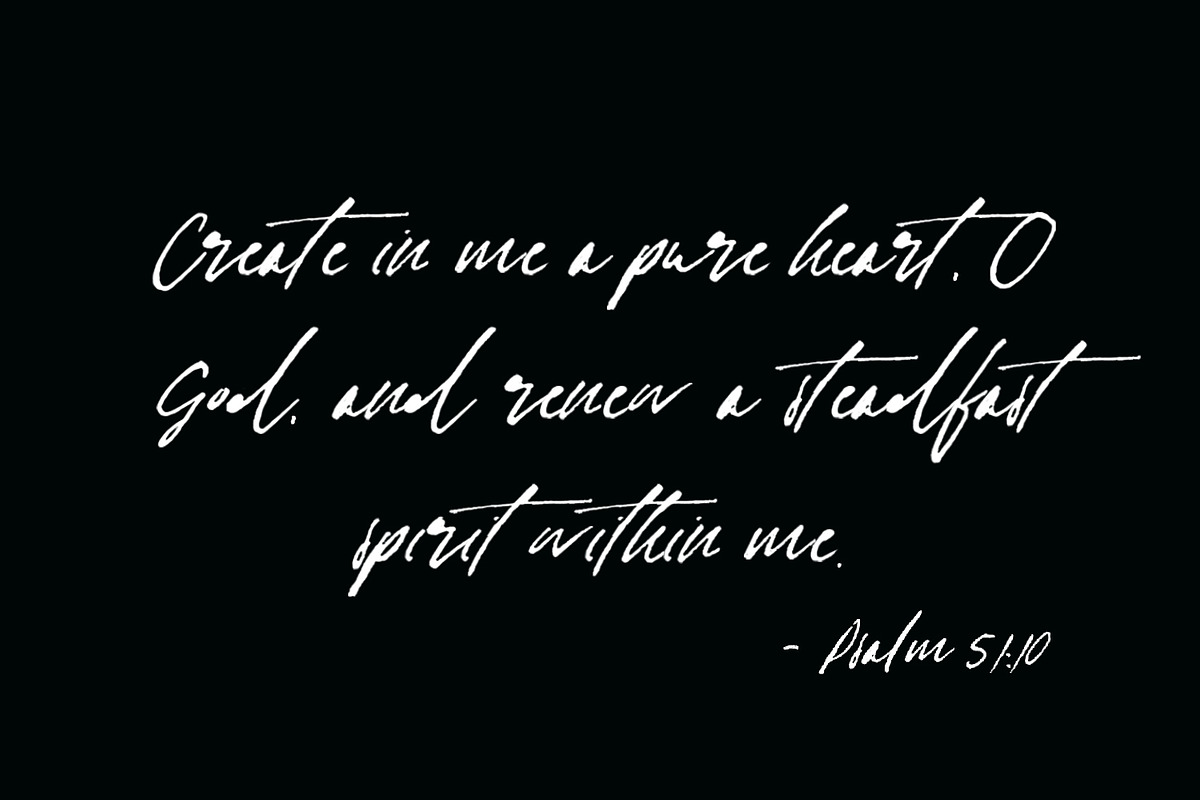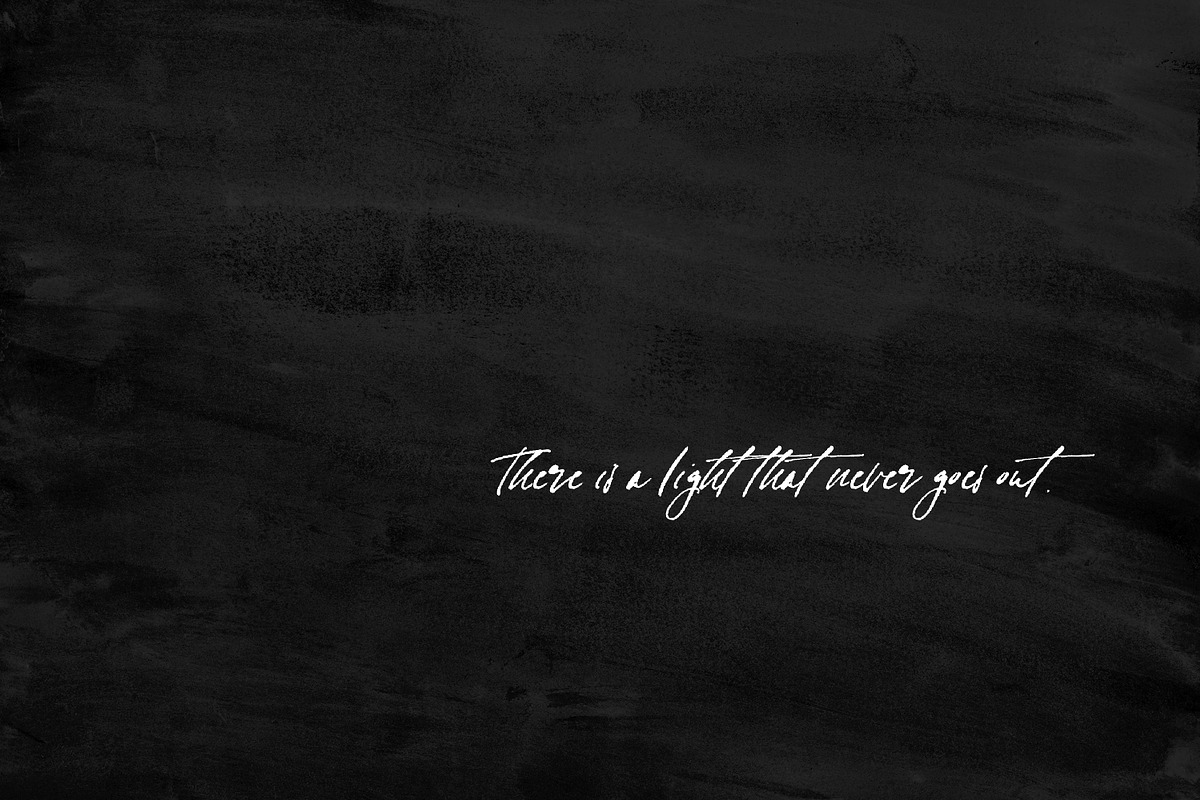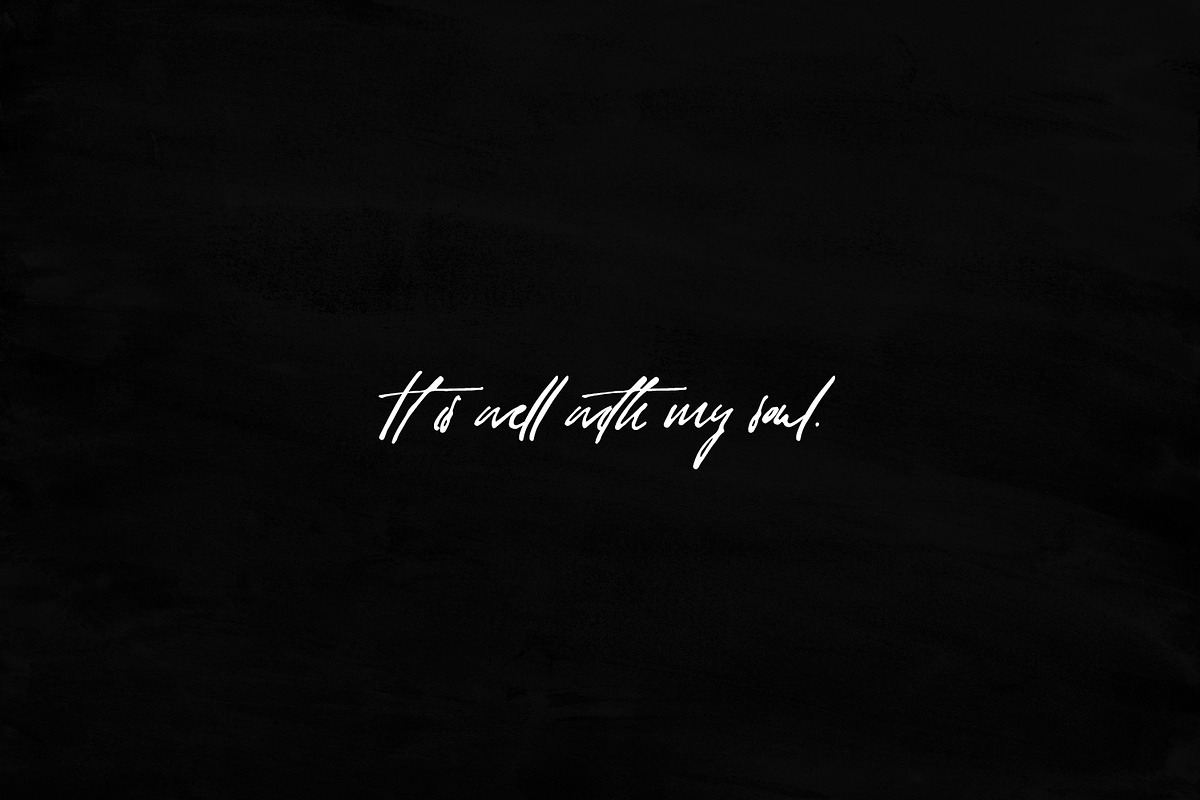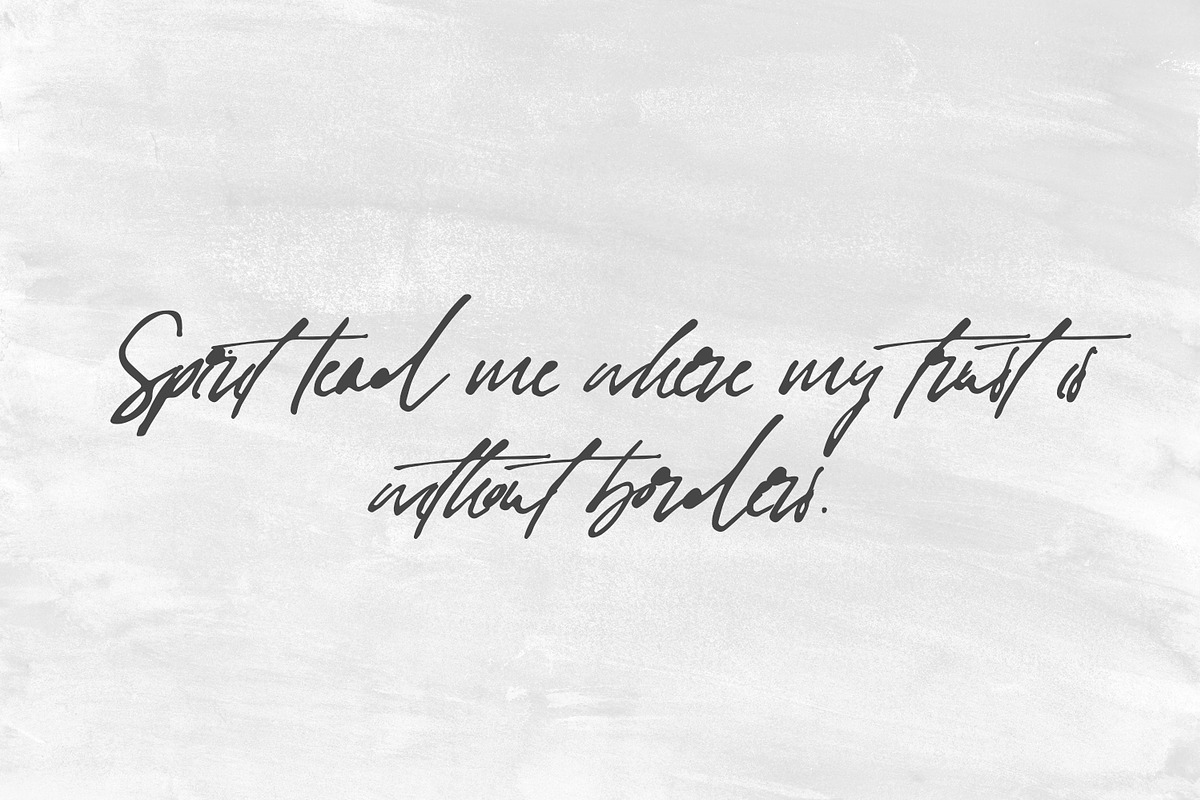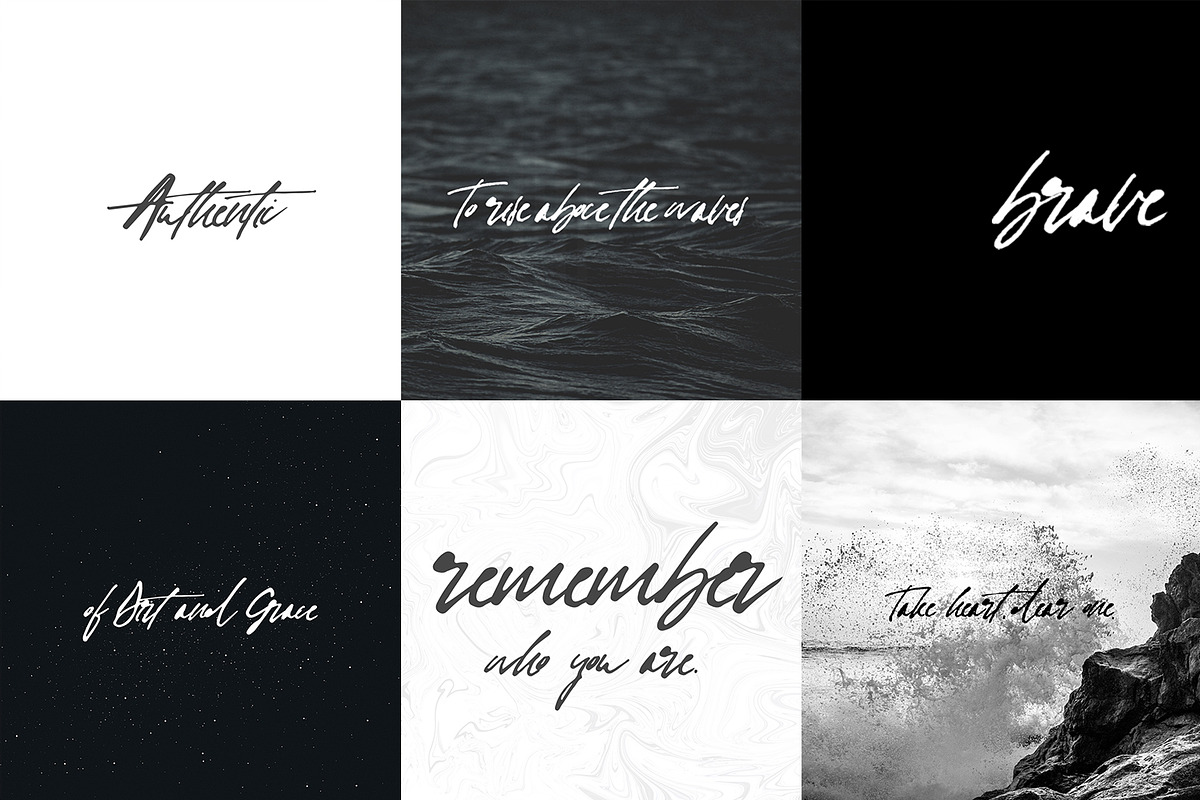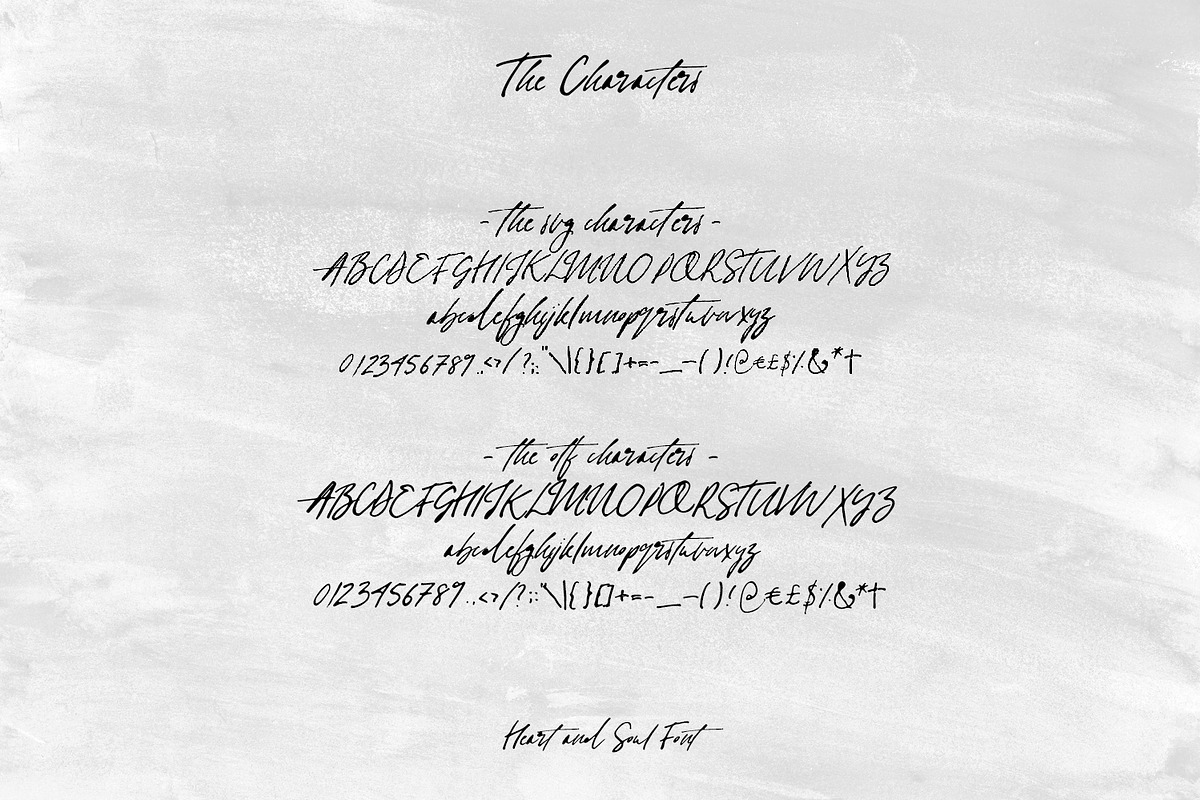
Heart + Soul | Handwritten Font
Inspired by the very breath of life and the song of all Creation, Heart and Soul is my first dip-pen-inked, hand-written font.